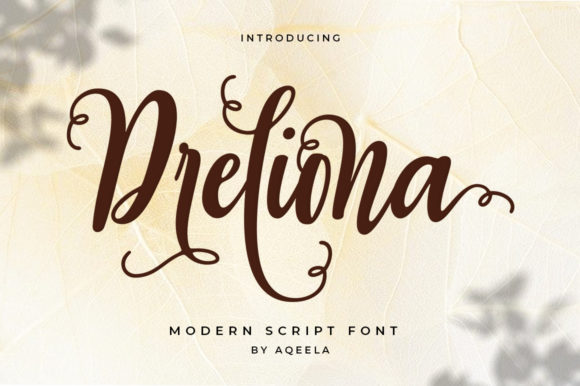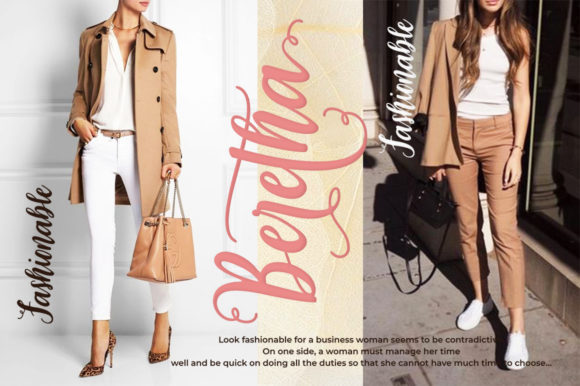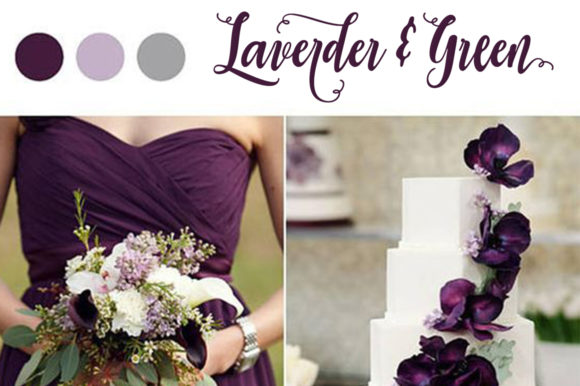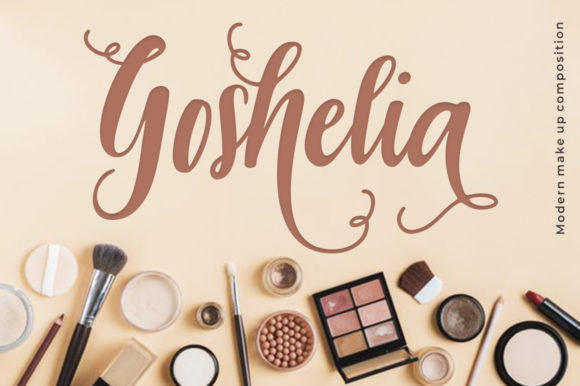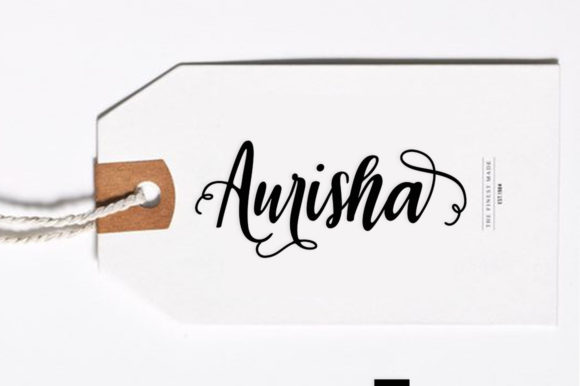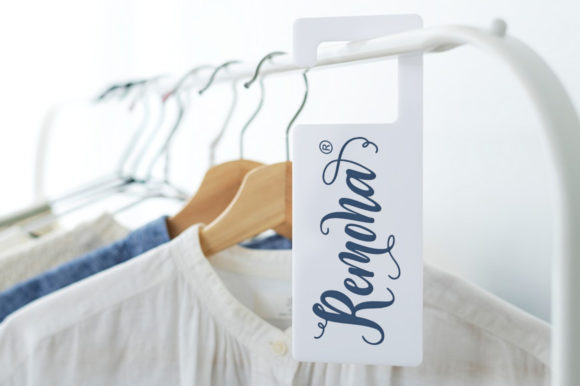
HomeScript FontsDreliona Font Script Fonts Dreliona Font FacebookXPinterestWhatsApp Dreliona Font Poster 2 Dreliona Font Poster 3 Dreliona Font Poster 4 Dreliona Font Poster 5 Dreliona Font Poster 6 Dreliona Font Poster 7 Dreliona Font Poster 8 About Dreliona Font Dreliona is a sweet and bold script that delivers confidence while remaining down-to-earth. DOWNLOAD ON CREATIVE FABRICAThis font is sold and delivered by Creative Fabrica. Font Canyon may earn a commission if you buy through this link. People also explored Bethany Font Gold Butter Headstrong Script Font Freedom Pillar Font Benzin Font Sixth Babylon Font Milky Nice Font Romanth Cattalis Font Christmas Winter Font Font 308 0 TagsDreliona Font Previous articleRiverstyle FontNext articleBuchin Font LEAVE A REPLY Cancel reply Comment: Please enter your comment! Name:* Please enter your name here Email:* You have entered an incorrect email address! Please enter your email address here Website: Save my name, email, and website in this browser for the next time I comment. Personal Use Free Numberpile Personal Use Free Read more about this font Baby Magnolia Personal Use Free Read more about this font Fifteenth Century Personal Use Free Read more about this font Zephan Personal Use Free Read more about this font BLOG To increase your work productivity, choose the most readable fonts. In today's fast-paced work environment, where digital communication and information consumption are integral to our daily routines, the choice of fonts can significantly impact... Fonts That Capture the Spirit of New York City Exploring Font Trends Elegant Wedding Invitation Fonts – Handwritten & Script Fonts